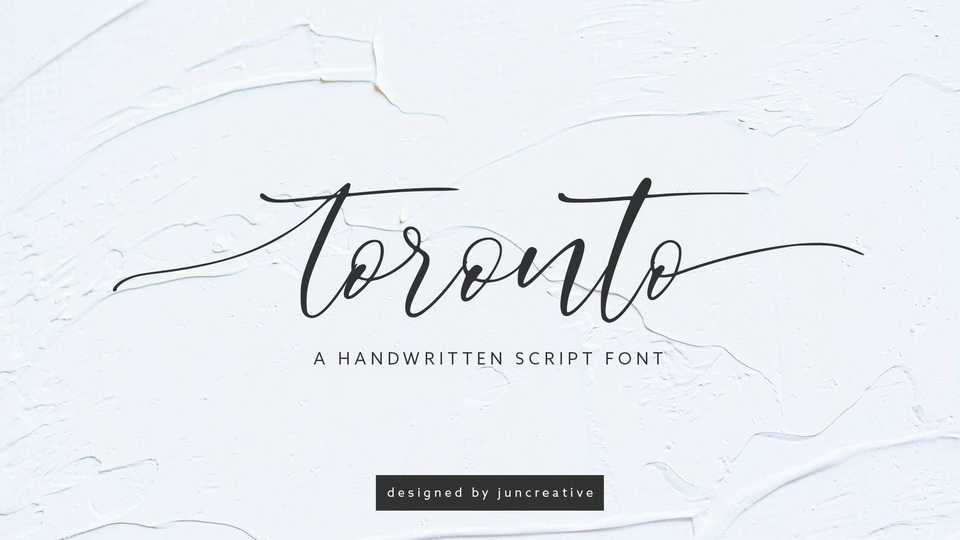
Download Toronto font, a stylish handwritten script with a casual chic flair. Toronto is perfect for branding, wedding invites and cards, and labels.
Designer: JunCreative